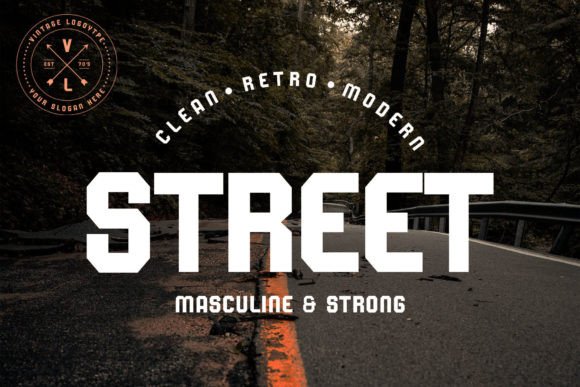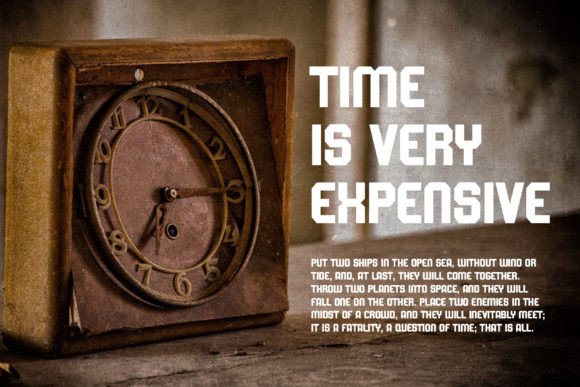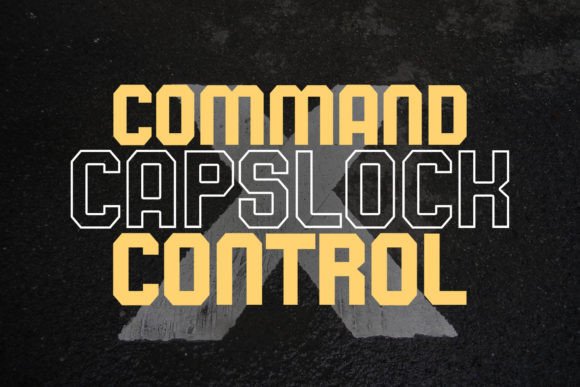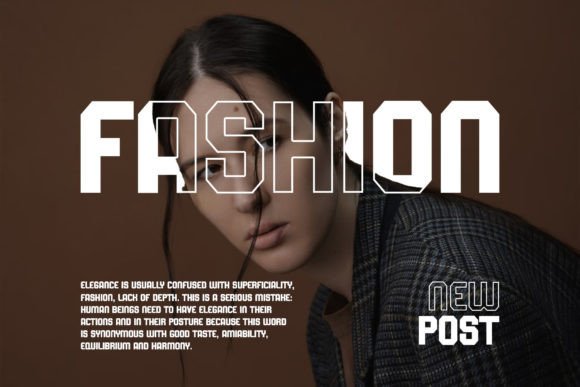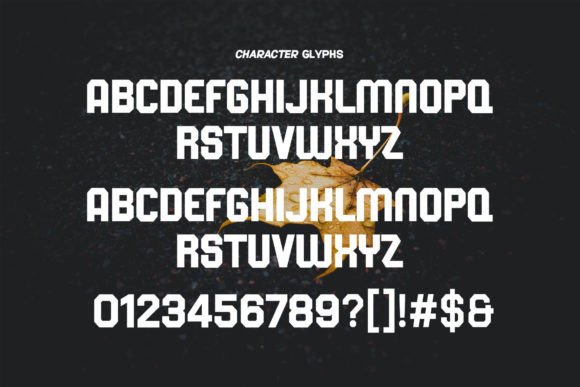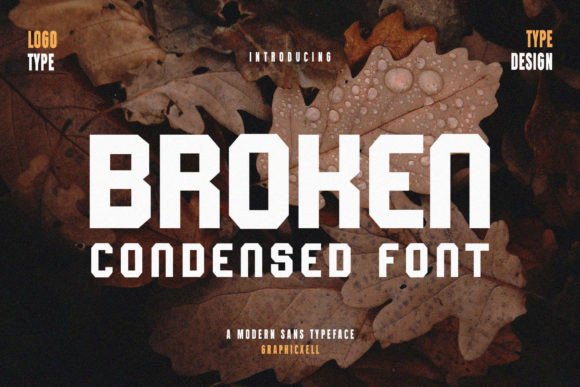
Introducing Broken Font: Elevate Your Designs with Elegant Sans-Serif Typography
In the world of design, typography plays a crucial role in conveying messages, evoking emotions, and creating visual identities. Among the numerous font styles available, sans-serif fonts have gained immense popularity for their clean, modern, and versatile appeal. One such font that has caught the attention of designers and crafters alike is the Broken Font. In this article, we’ll explore the features, benefits, and uses of Broken Font, and why it’s an excellent addition to your typography arsenal.
What is Broken Font?
Broken Font is an elegant sans-serif font that boasts beautiful contrast, making it perfect for a wide range of design applications. Its unique design elements and exceptional legibility make it an excellent choice for designers seeking to create visually stunning and effective designs. Whether you’re working on layout designs, apparel, magazines, posters, logos, branding, or other projects, Broken Font is an excellent option to consider.
Key Features of Broken Font
- Elegant Sans-Serif Design: Broken Font features a sleek, modern sans-serif design that exudes sophistication and elegance.
- Beautiful Contrast: The font’s carefully crafted design elements provide excellent contrast, making it easy to read and visually appealing.
- Versatile: Broken Font is suitable for various design applications, including print and digital media.
- High Legibility: The font’s clear and concise design ensures that your message is conveyed effectively, even at smaller font sizes.
Benefits of Using Broken Font
Broken Font offers several benefits that make it an attractive choice for designers and crafters:
- Enhance Your Brand’s Visual Identity: With Broken Font, you can create a unique and recognizable visual identity for your brand, setting it apart from competitors.
- Improve Readability: The font’s exceptional legibility ensures that your message is conveyed clearly, reducing the risk of misinterpretation.
- Boost Creativity: Broken Font’s elegant design and versatility inspire creativity, allowing you to experiment with various design concepts and ideas.
- Save Time: With Broken Font, you can quickly create professional-looking designs without spending hours on typography.
Design Applications for Broken Font
Broken Font’s versatility makes it suitable for a wide range of design applications, including:
- Layout Designs: Use Broken Font to create stunning layout designs for magazines, brochures, and other print materials.
- Apparel: Add a touch of elegance to your apparel designs with Broken Font, perfect for t-shirts, hoodies, and other clothing items.
- Magazines and Posters: Create eye-catching magazine covers and posters with Broken Font, grabbing the attention of your audience.
- Logos and Branding: Establish a strong brand identity with Broken Font, ideal for logos, business cards, and other branding materials.
In conclusion, Broken Font is an exceptional sans-serif font that offers elegance, versatility, and legibility. Its beautiful contrast and unique design elements make it perfect for various design applications, from layout designs to logos and branding. Whether you’re a designer or crafter, Broken Font is an excellent addition to your typography collection. With its numerous benefits and uses, Broken Font is sure to elevate your designs and help you achieve your creative goals.